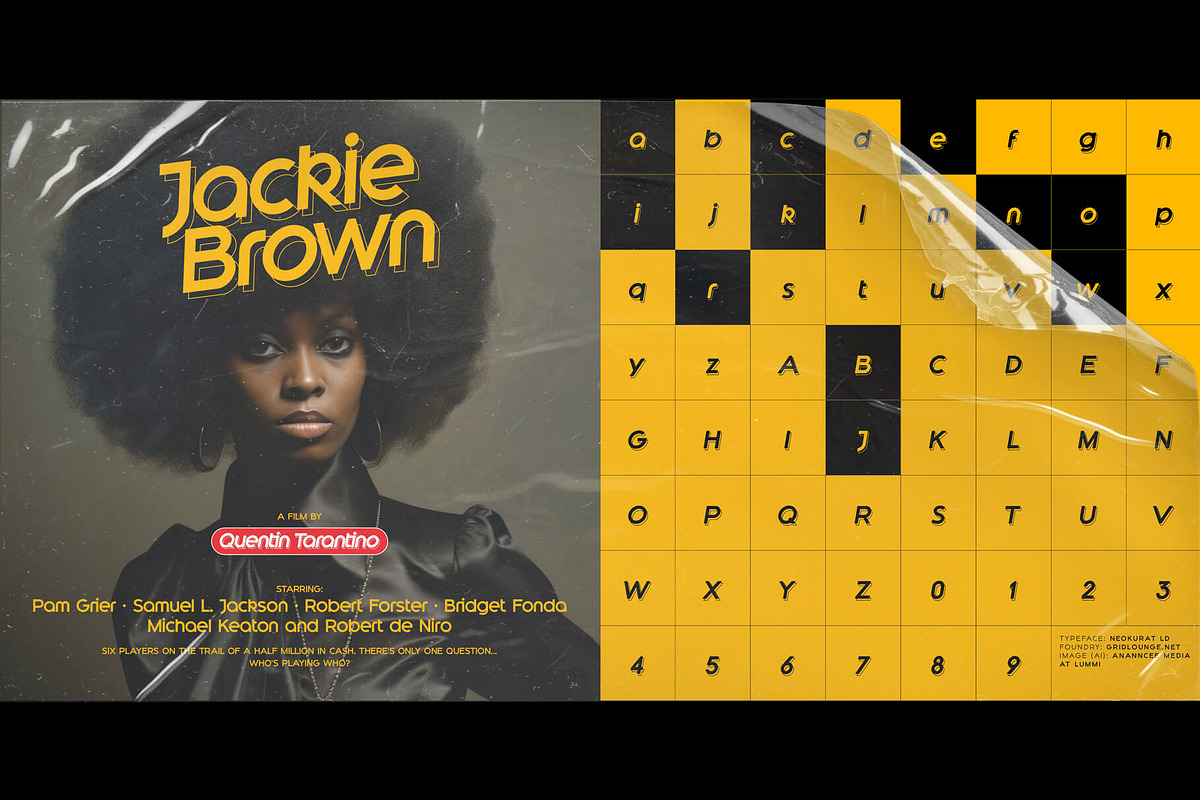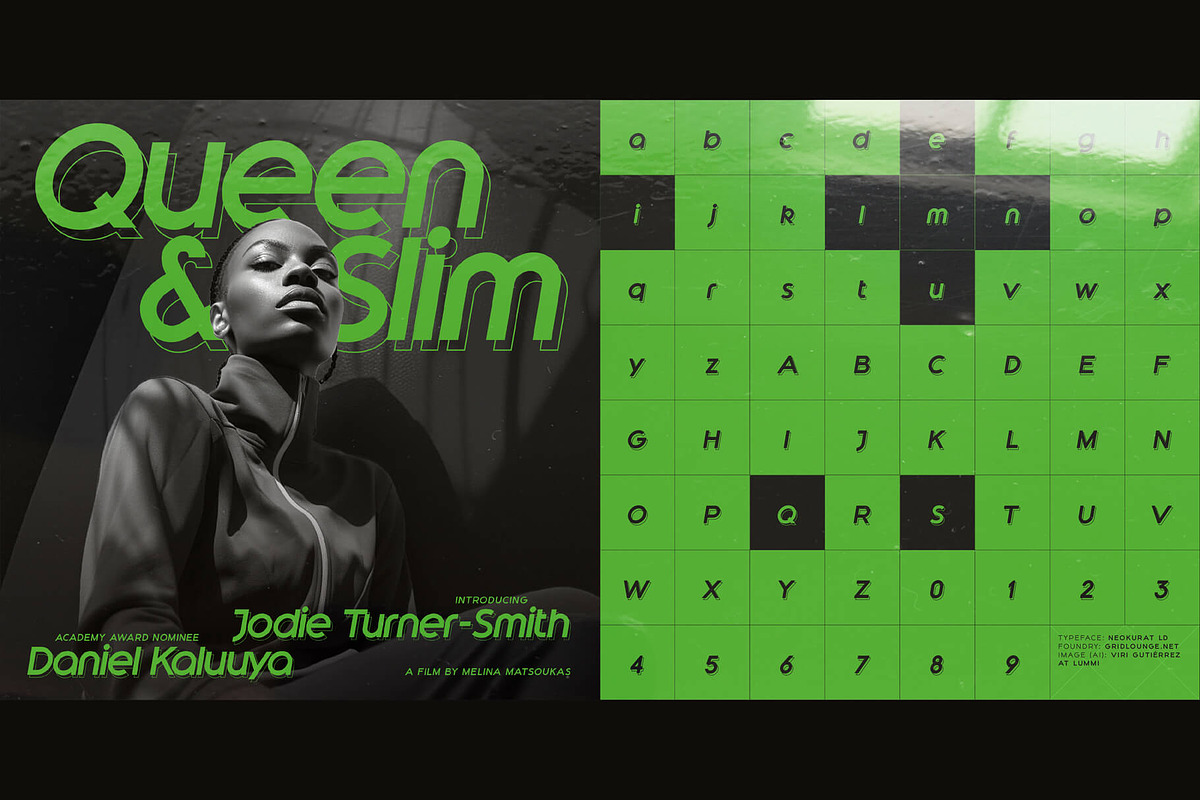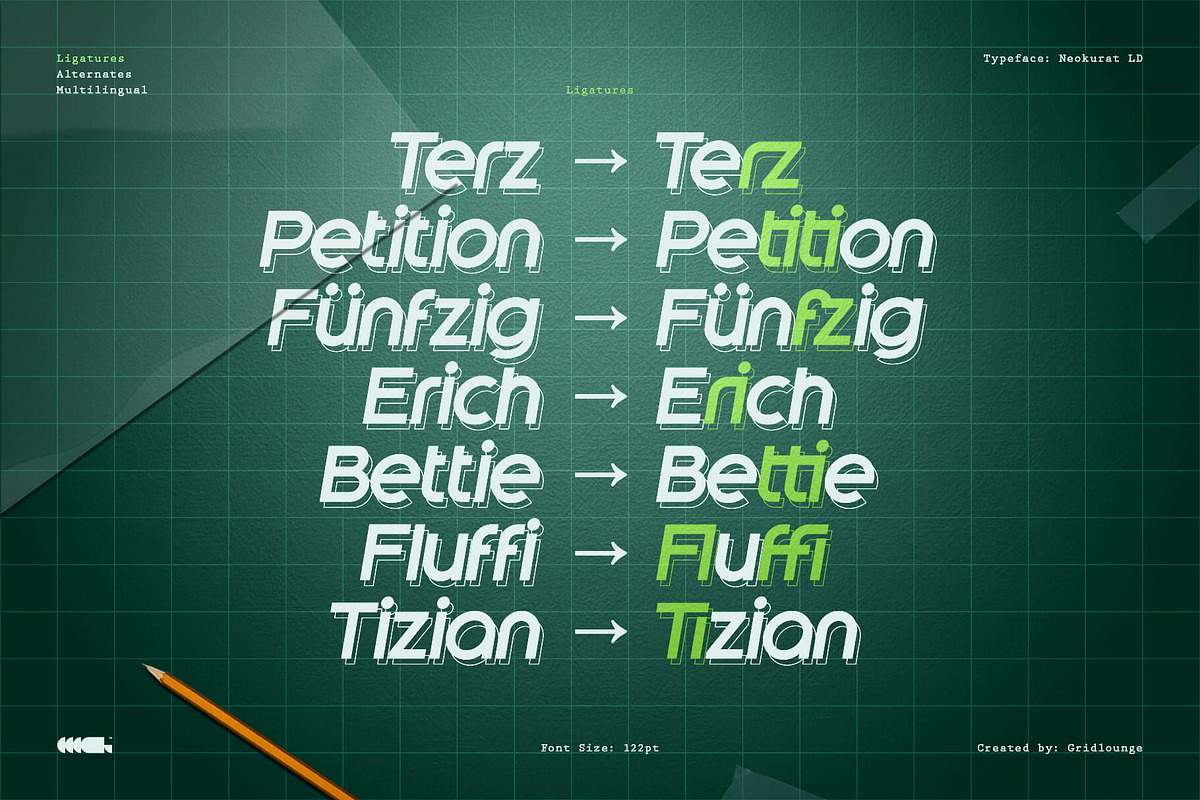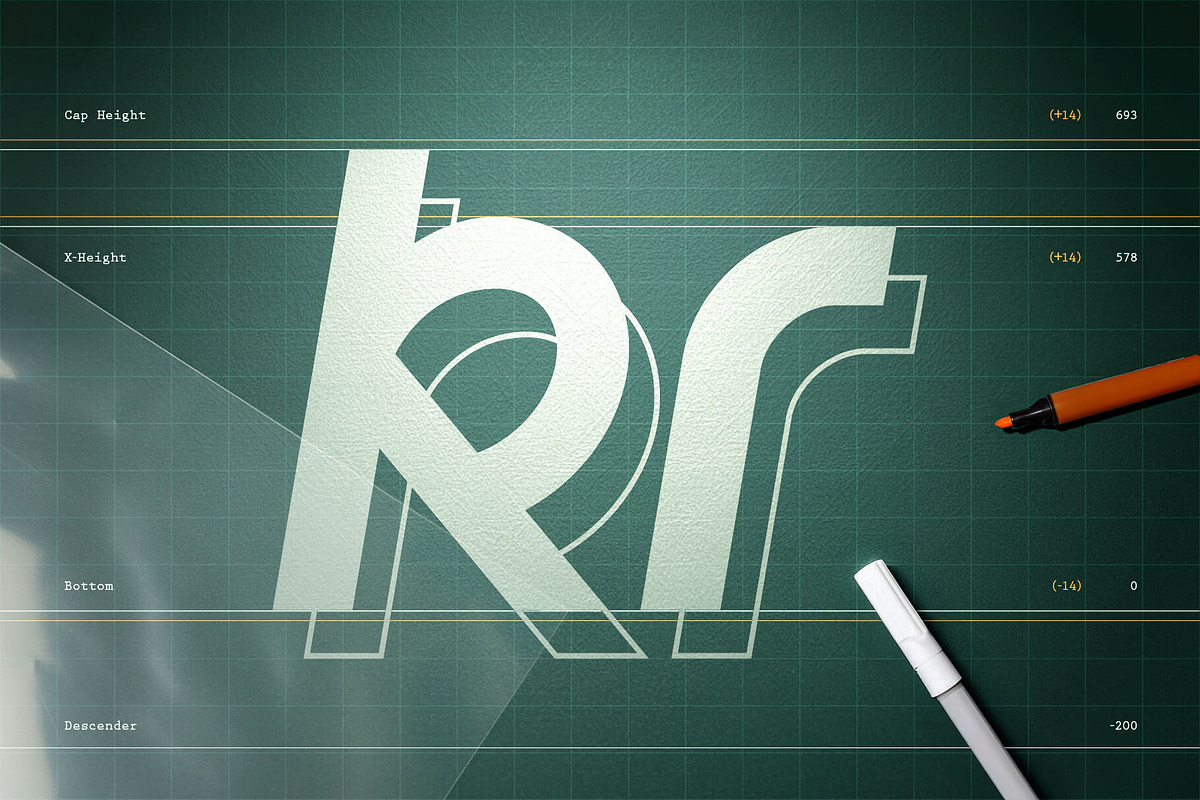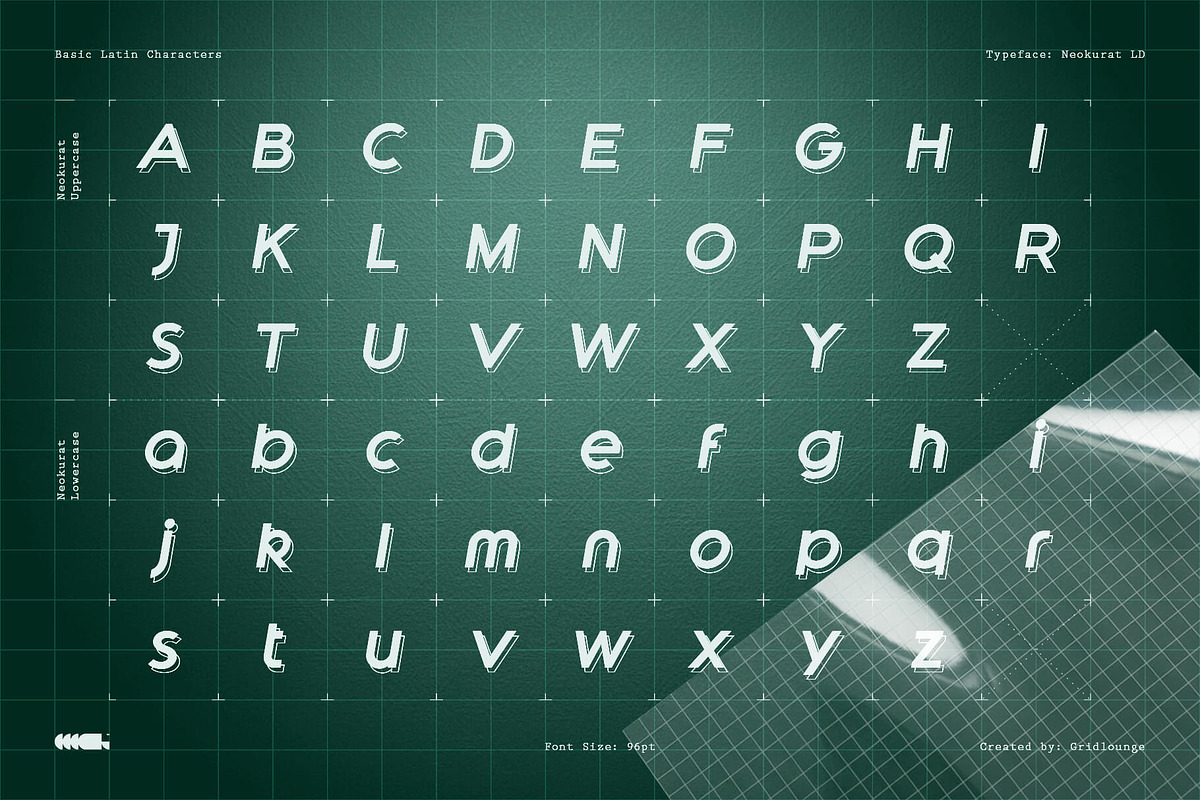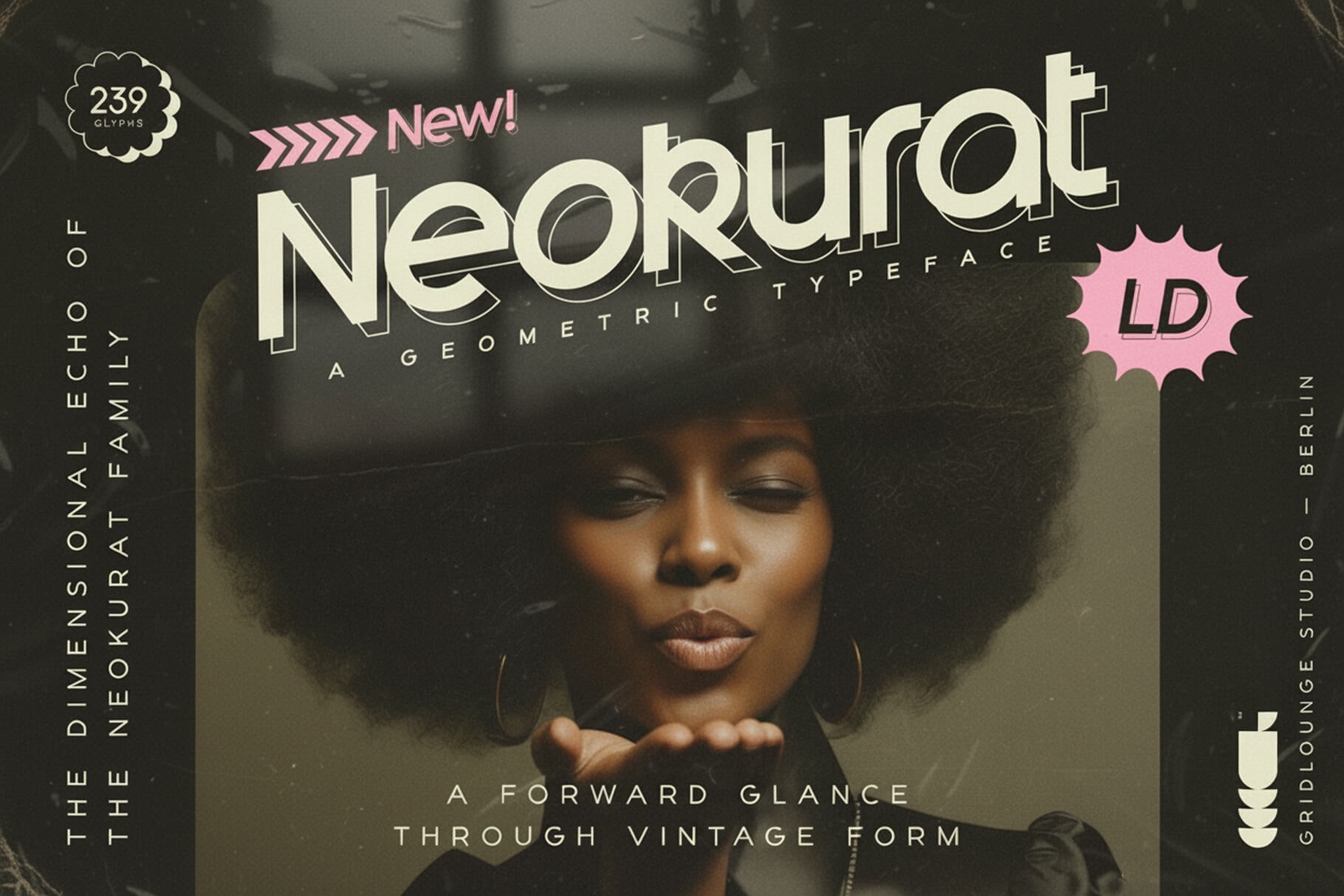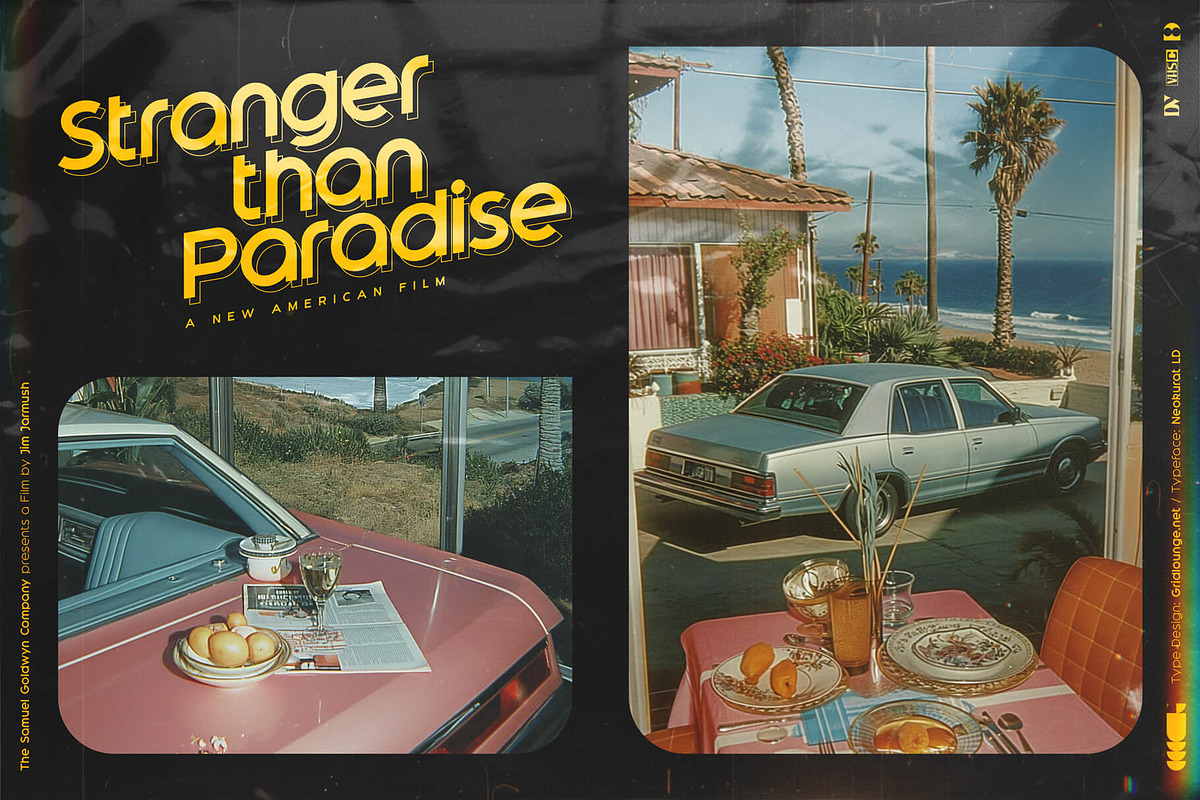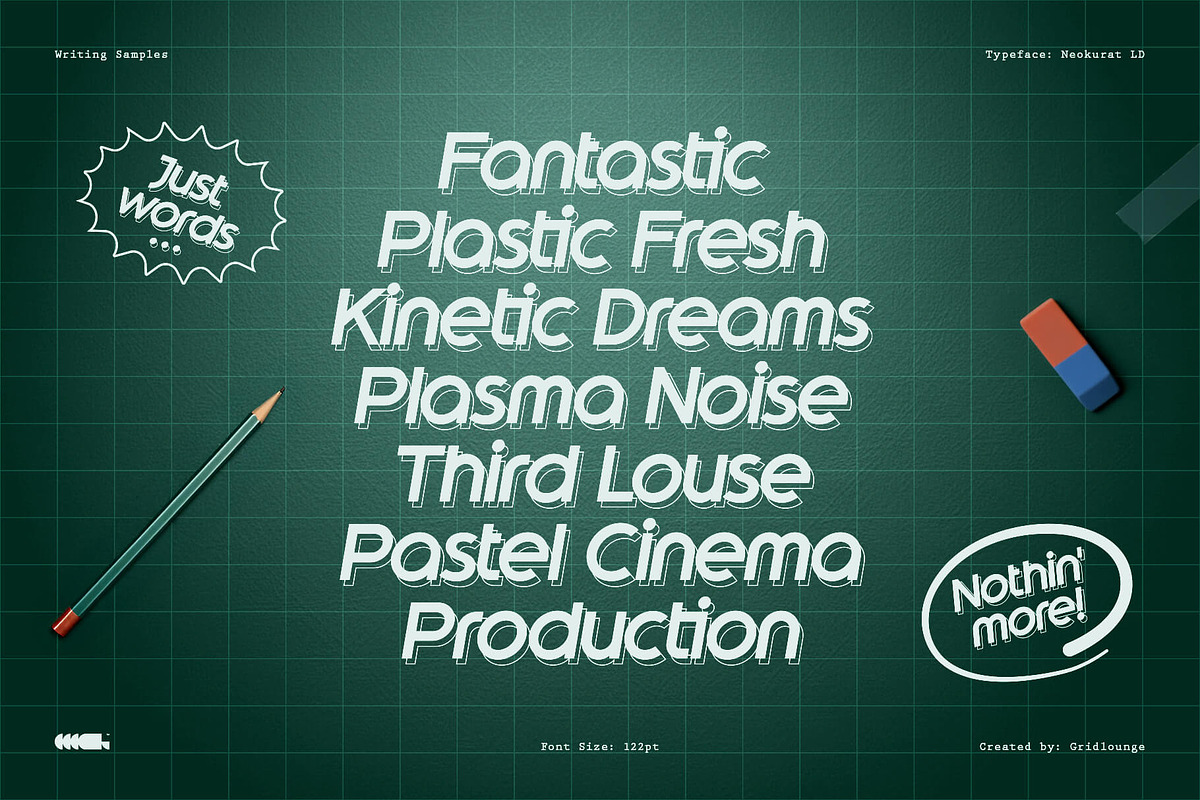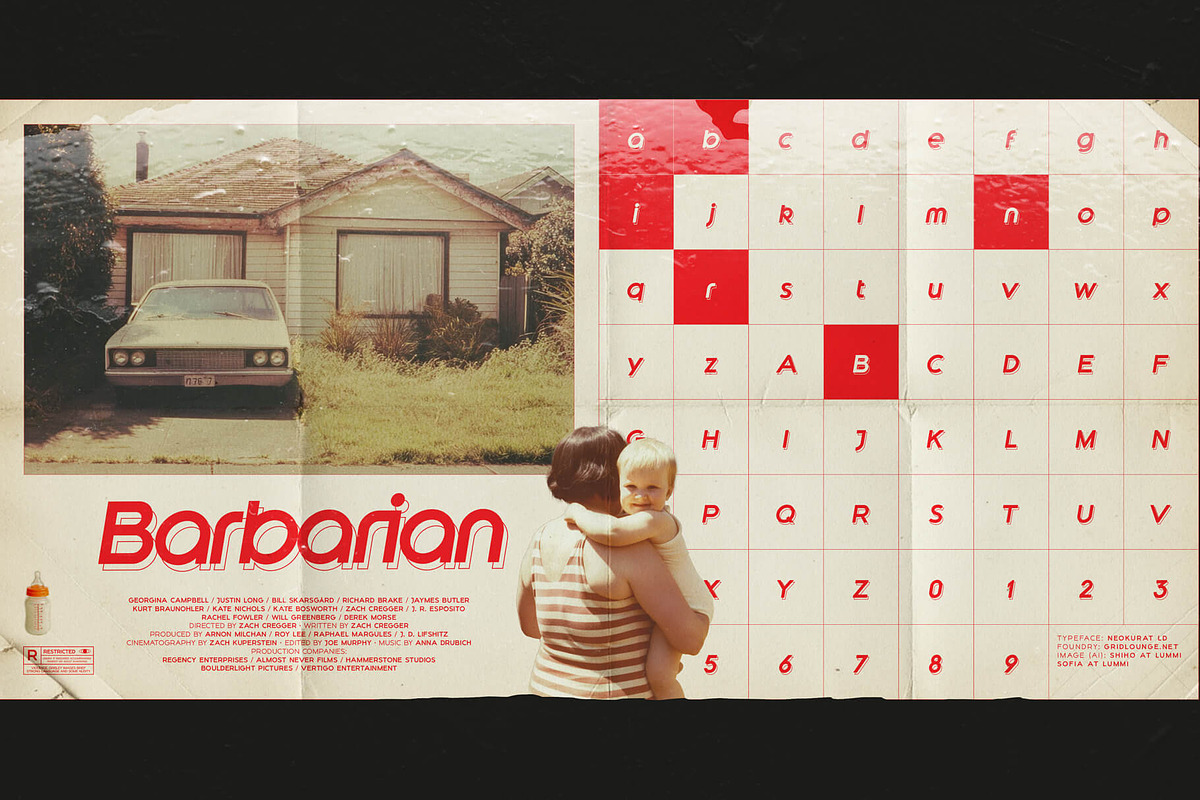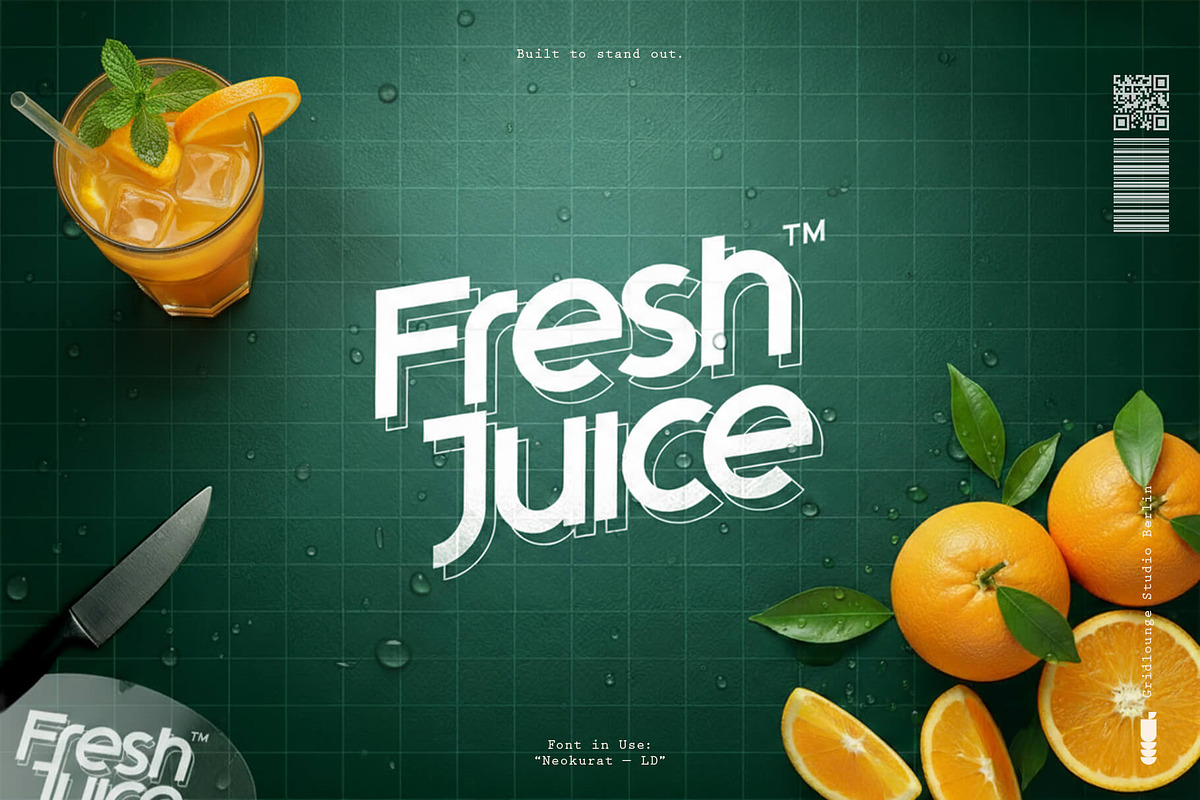
Neokurat LD - Geometric Display Font
Neokurat LD — The Dimensional Echo of the Neokurat Family.
Neokurat LD is a bold geometric display typeface inspired by retro cinema titles, VHS graphics and Bauhaus typography. It blends clean modern forms with subtle nostalgic details — perfect for striking headlines, logos, album covers, and contemporary branding projects.
✦ Features
- Geometric sans-serif construction with unique character shapes
- Tight spacing and strong rhythm for high visual impact
- Retro-modern balance inspired by 70s–90s film typography
- Perfect for logos, posters, album covers and motion graphics
🎞️ Ideal For
- Branding
- Editorial Design (Headlines)
- Posters
- Film Titles -Branding
- Digital Campaigns
- Music Artwork
💡 Design Notes
Neokurat LD captures the feeling of modern nostalgia — a clean grid with cinematic energy. Use it to create visuals that feel both timeless and futuristic.